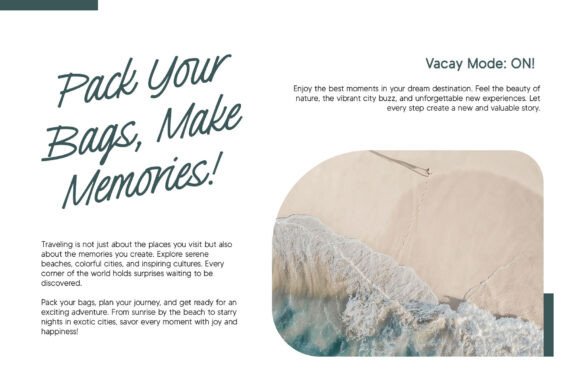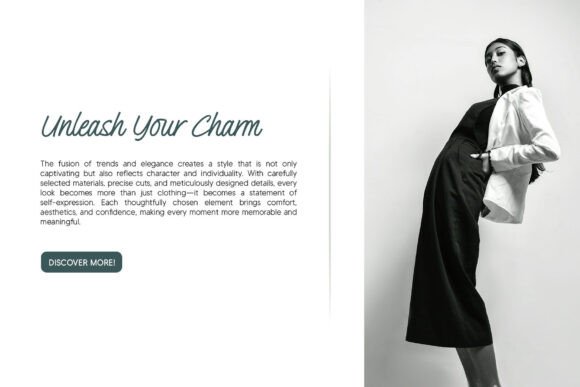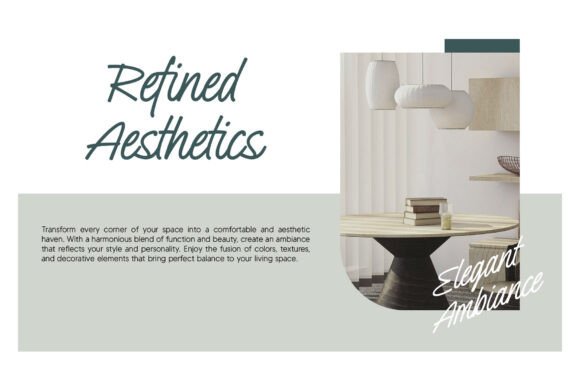
Introduction to Pillucia Font
As designers, we’ve all been there – staring at a blank canvas, trying to bring our creative vision to life. And sometimes, it’s just a matter of finding the right tool to get us started. For me, it’s always about the font. The perfect font can elevate a design from good to great, and that’s exactly what the Pillucia Font does.
With its soft and flowing appearance, the Pillucia Font is a game-changer for designers looking to add a touch of elegance to their projects. Whether you’re working on branding, invitations, or product packaging, this high-quality font is sure to make a statement. And the best part? It’s a free download, making it an invaluable resource for any creative project.
So, let’s dive into the world of Pillucia Font and explore what makes it a must-have for designers of all levels.
Key Features of Pillucia Font
- Pillucia Font is a high-quality, free design resource ideal for creative projects.
- Features a transparent background, making it easy to use in various design applications.
- Includes a wide range of characters, including uppercase and lowercase letters, numbers, and punctuation marks.
- Pillucia Font is designed to be versatile, making it suitable for various creative projects, from logos to typography.
Honest Review: Pillucia Font
As a designer, I’m always on the lookout for high-quality design resources that can elevate my creative projects. Recently, I stumbled upon the Pillucia Font, and I’m excited to share my honest review with you.
- ✨ The Pillucia Font is incredibly versatile, with a unique blend of modern and vintage elements that make it perfect for a wide range of creative projects.
- ✨ The transparent background allows for seamless integration with any design element, giving me more flexibility in my designs.
- ⚠️ The font may not be suitable for small text sizes, as it can become pixelated and lose its clarity.
- ⚠️ The font family is relatively small, which may limit its use in large-scale projects.
Overall, I’m impressed with the Pillucia Font’s unique style and versatility. While it may have some limitations, it’s a great addition to any designer’s collection, and I’d definitely recommend it for free download.
The Pillucia Font is a versatile and stylish font that can elevate any creative project. To get the most out of it, follow these steps:
Experiment with different font sizes and styles to create a unique look. Use the font in combination with other design elements, such as images and graphics, to add depth and interest to your design.
Common Use Cases for Pillucia Font
The Pillucia Font is suitable for a wide range of creative projects, including logos, brochures, business cards, and presentations. Use it to add a touch of elegance and sophistication to your design.